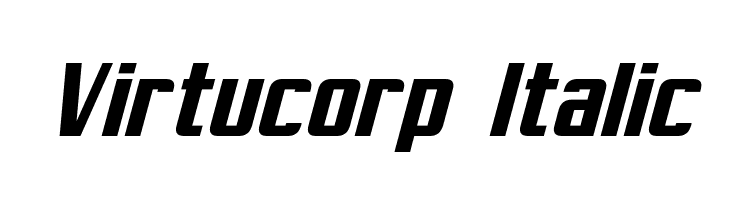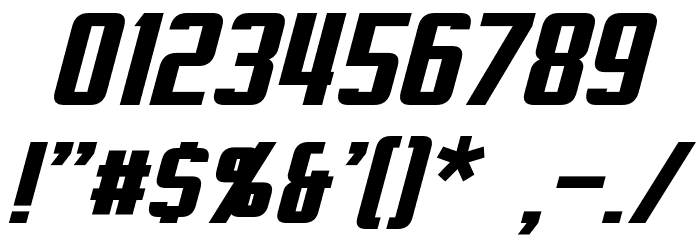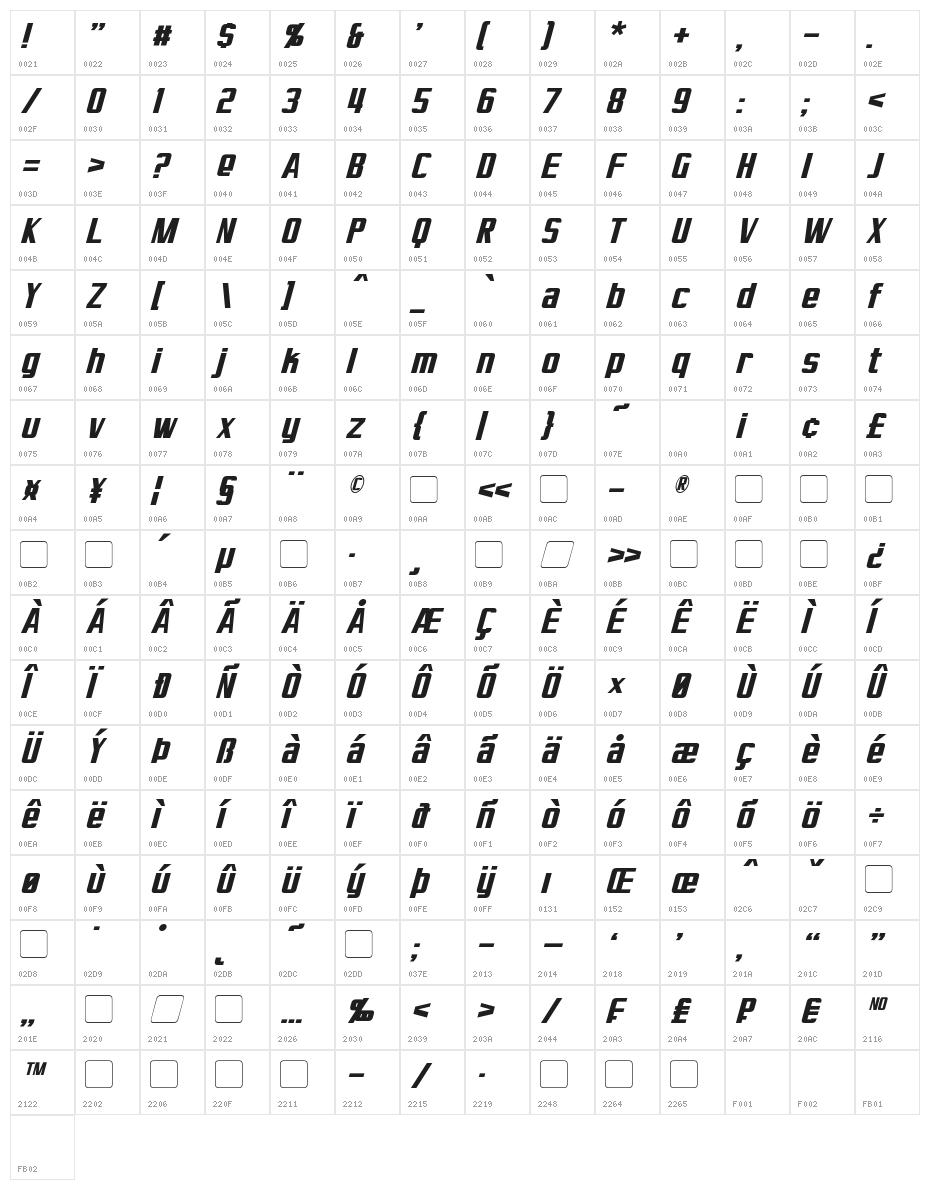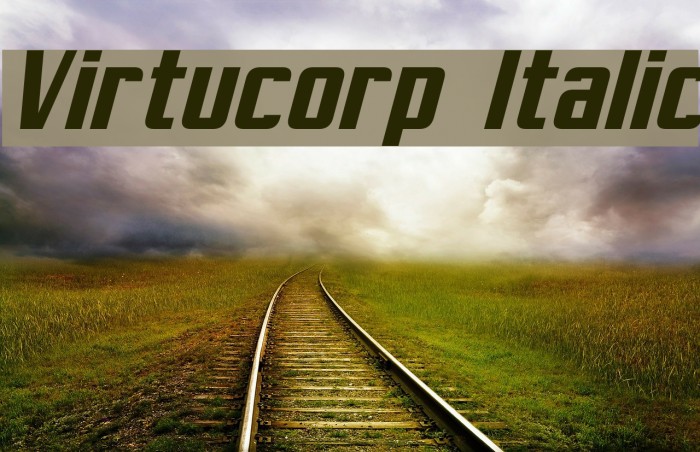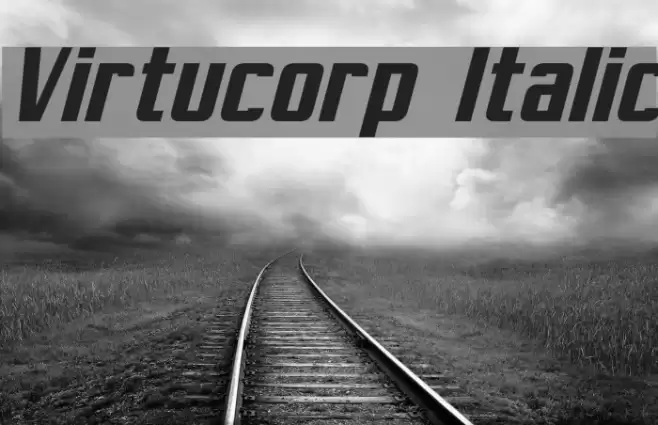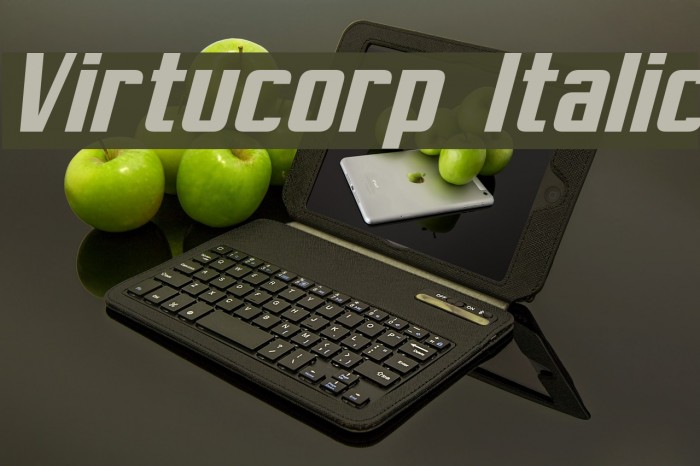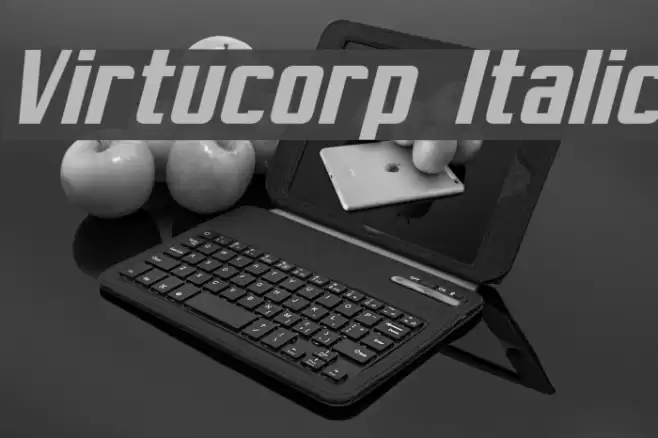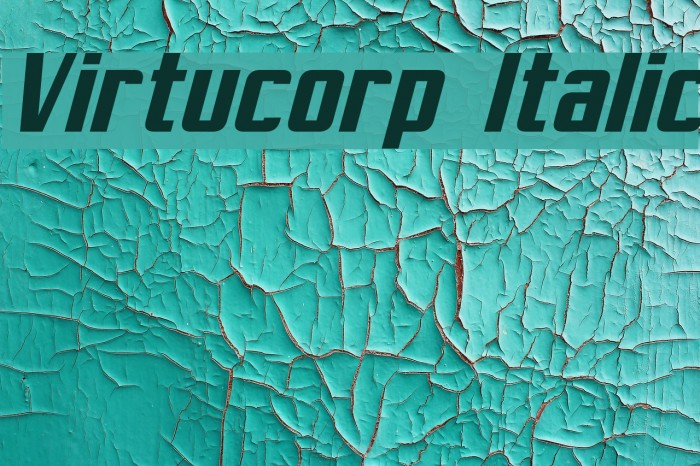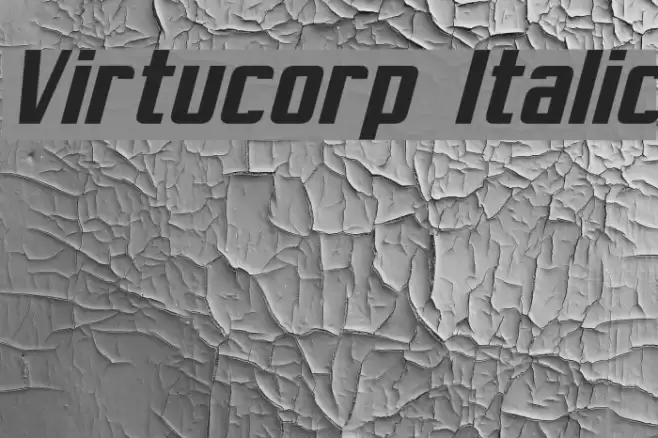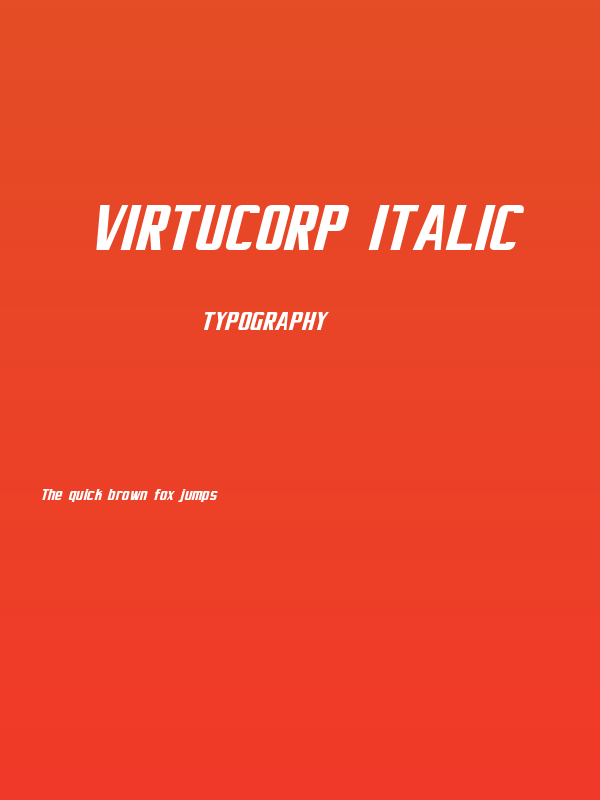
Virtucorp Italic Font
Virtucorp Italic Description
This font features a bold and dynamic italic style, characterized by its strong, angular lines and slightly condensed letterforms. The uppercase letters are tall and commanding, while the lowercase letters maintain a consistent flow, enhancing readability. The numerals are robust and align well with the overall aesthetic, making them suitable for impactful displays. Special characters are designed with the same boldness, ensuring they stand out in any composition. The font's design is modern and sleek, making it ideal for projects that require a sense of urgency or forward movement.
| Use Case | Headlines, Logos, Advertisements |
| Proposed Projects | Ideal for sports branding, dynamic advertisements, and modern editorial headlines. |